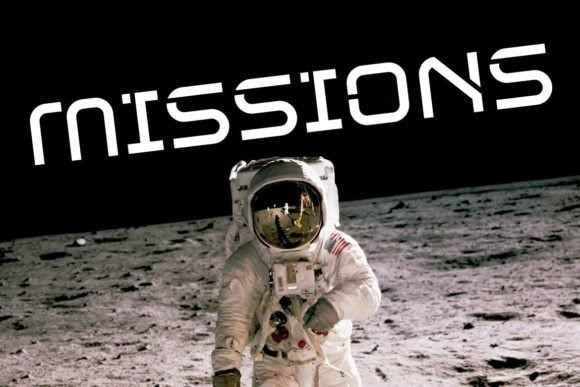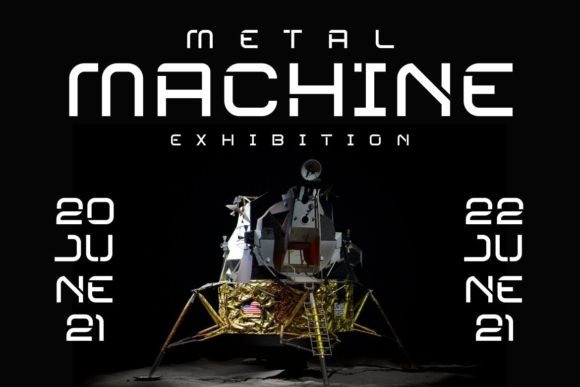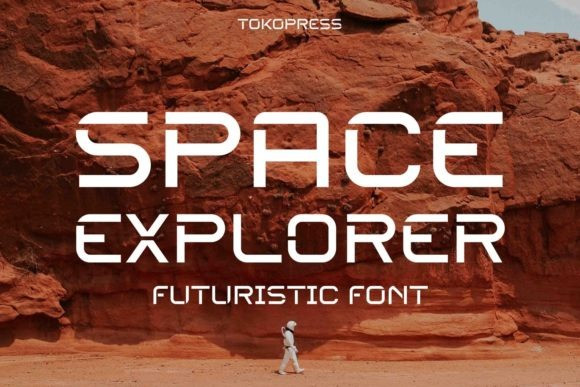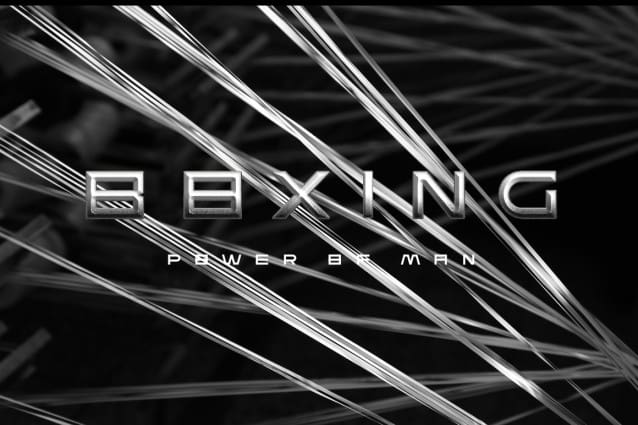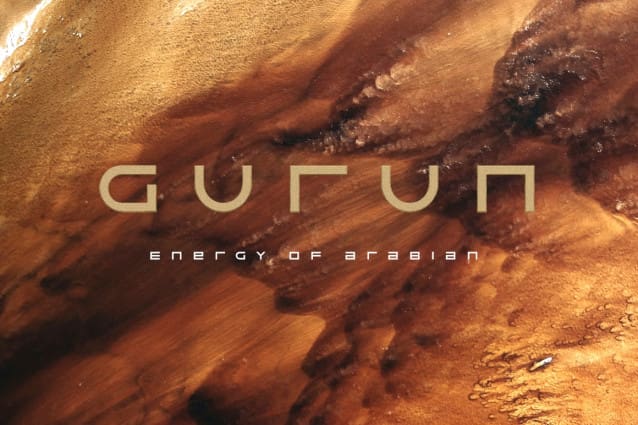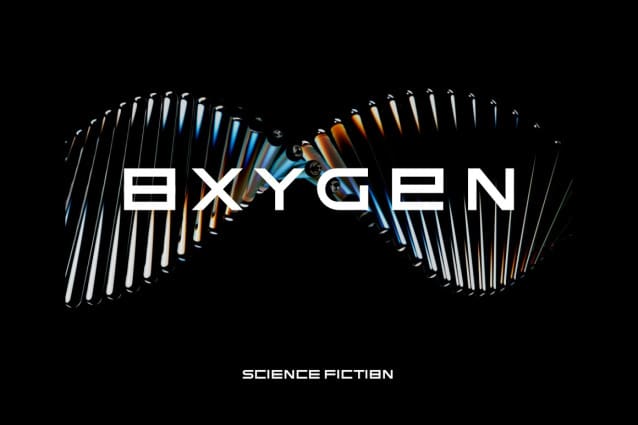
FEAR Dynamic Font
FEAR Dynamic Font, is a futuristic modern font that features upper & lowercase characters, multilingual, numbers & punctuation. A modern display font that brings stoicism and intrigue to your title designs. A versatile font that works in both large and small sizes. This font is suitable for a wide variety of projects such as logos, invitations, branding, magazine, photography, card, product packaging, product mockup, mugs, quotes, posters, labels, signatures, editorials, art deco, and much more.